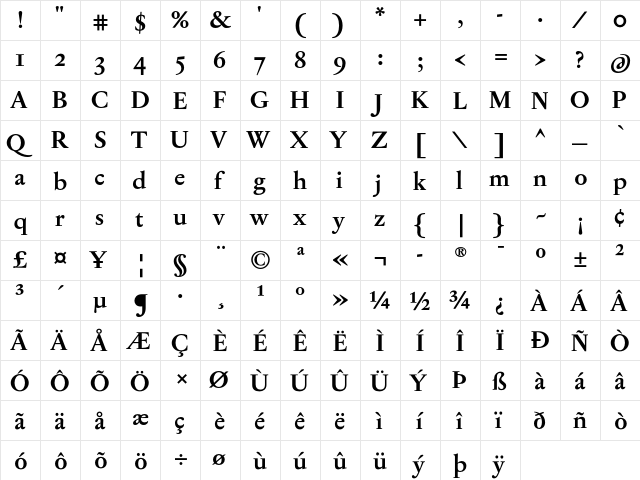
Jannon T Moderne Pro Bold
| Foundry | Frantisek Storm |
| Designer | Frantisek Storm |
Design Context for Jannon T Moderne Pro Typeface
Jannon T Moderne Pro is a composed and adaptable typeface that performs quietly and consistently across a wide range of design contexts. The heavy weight commands attention and anchors typographic hierarchies.